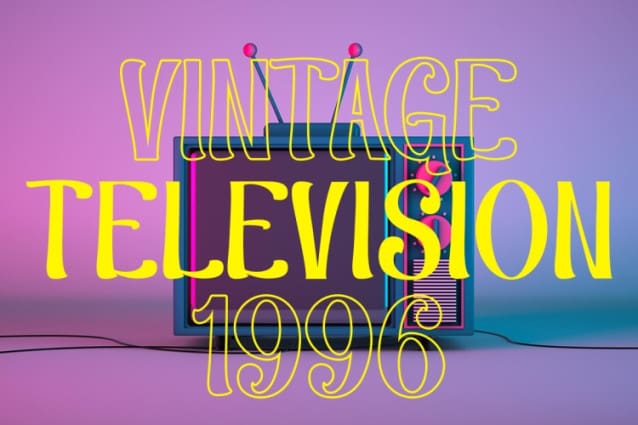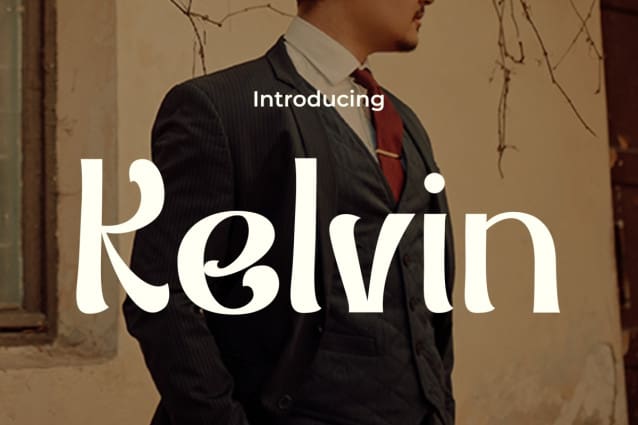
Kelvin Display Font
Kelvin Display Font, isn’t just a font, it’s a personality! This delightful script dances with charm, bringing a touch of schoolyard innocence to your designs. Perfect for logos, quotes, invitations, and more, Kelvin adds a sprinkle of handwritten magic to every word.
Imagine your logo bursting with personality, your invitations exuding warmth, and your social media posts catching eyes with playful flair. With Kelvin, the possibilities are endless! Whether you’re crafting heartfelt greetings or eye-catching branding, this versatile font adds a unique touch that resonates.